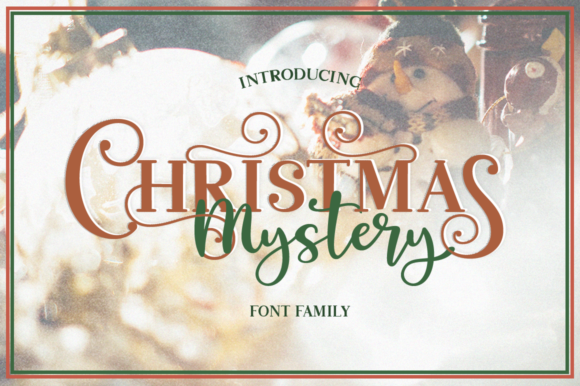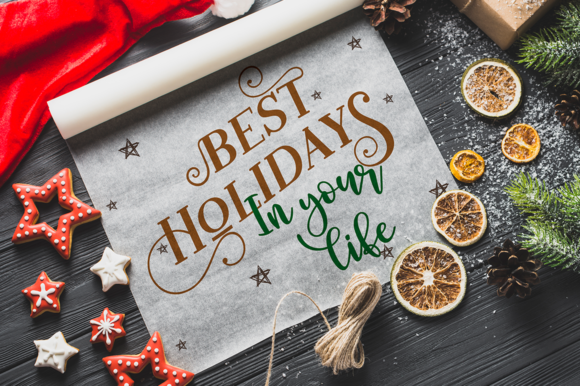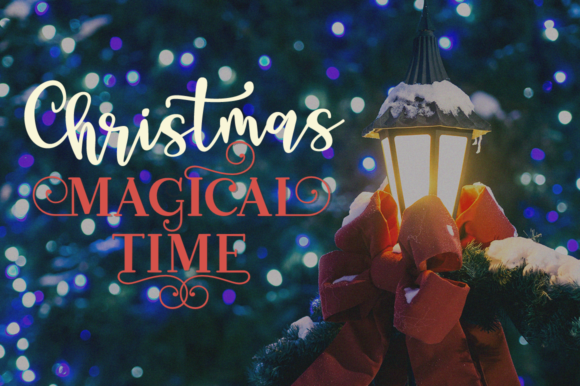
Christmas Mystery Family Font
About Christmas Mystery Family Font
The Christmas Mystery is a fun holiday family. It comes with several styles that fit perfectly together and will help to make your designs more complete and bright. Add a touch of winter elegance to your designs with this beautiful family.